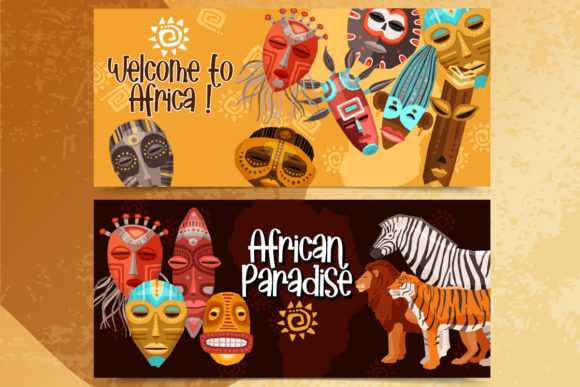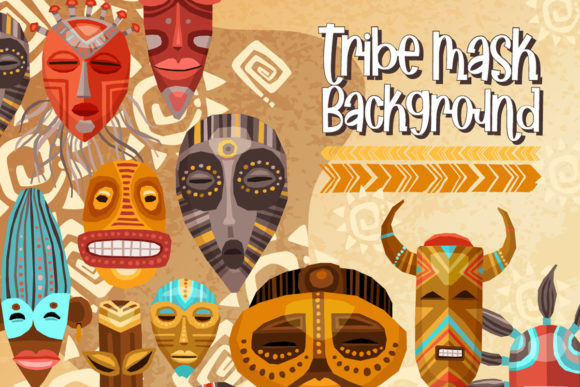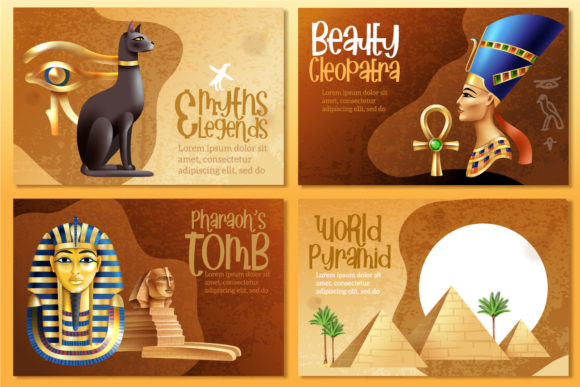
African Paradise Font
African Paradise is an incredibly quirky and sweet display font. Whether you use it for cartoon related designs, children games or just any creation that requires a lovely touch, this font will be an amazing choice.